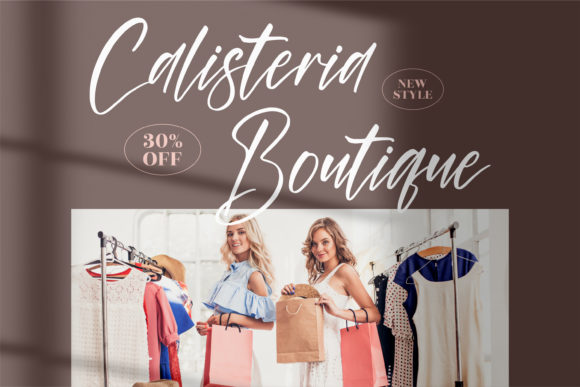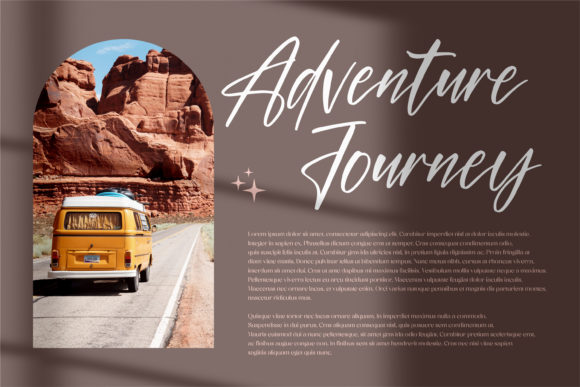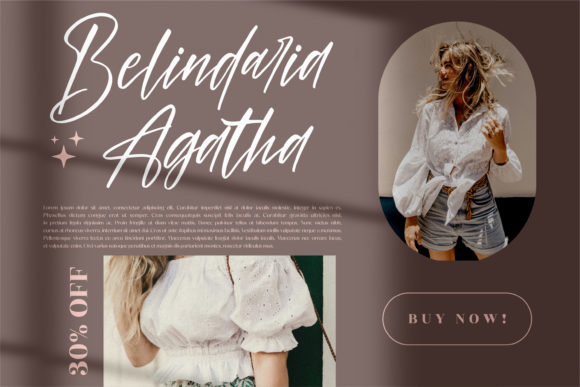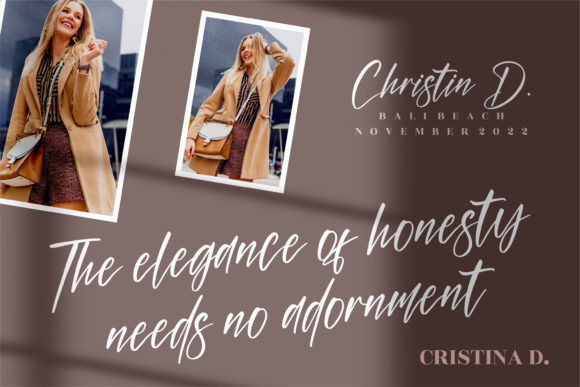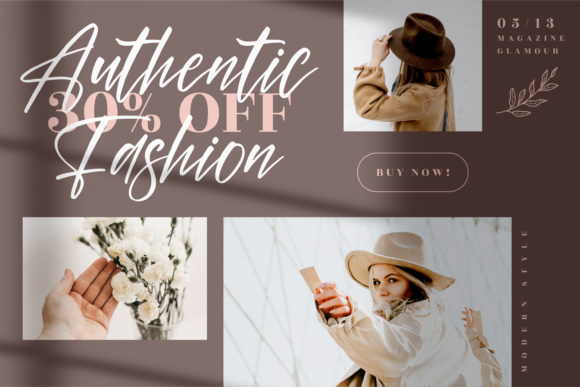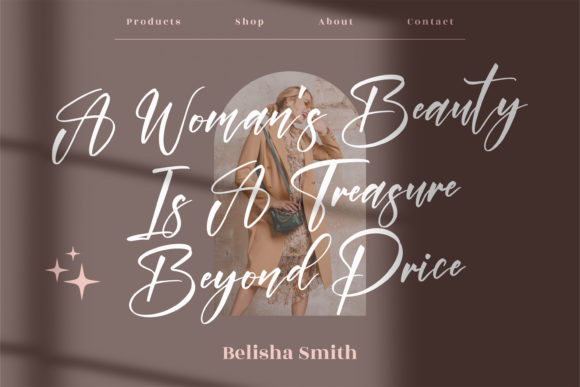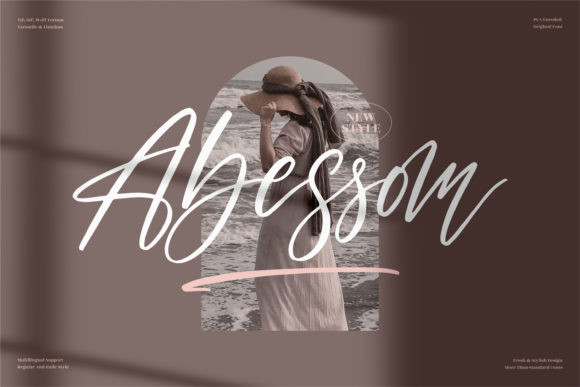
Introducing Abessom Font: The Ultimate Choice for Personalized Designs
Are you a designer or crafter looking for a font that can add a touch of personality to your projects? Look no further than Abessom Font, a laid-back and stylish script font that’s perfect for a variety of designs. In this article, we’ll explore the features and benefits of Abessom Font, and why it’s a must-have for anyone looking to add a personalized style to their work.
What is Abessom Font?
Abessom Font is a beautiful script font that’s designed to bring a sense of relaxation and style to your designs. Its laid-back vibe makes it perfect for projects that require a personal touch, such as branding, packaging, and advertising. With its elegant and flowing lines, Abessom Font is sure to capture the attention of your audience and leave a lasting impression.
Key Features of Abessom Font
So, what makes Abessom Font so special? Here are some of its key features:
• Laid-back and stylish: Abessom Font has a unique and stylish design that’s perfect for adding a personal touch to your projects.
• PUA encoded: Abessom Font is PUA (Private Use Area) encoded, which means you can access all of the glyphs and swashes with ease. This makes it easy to customize your text and add special effects.
• Multi-language support: Abessom Font supports multiple languages, making it a great choice for designers and crafters who work with international clients.
Benefits of Using Abessom Font
So, why should you choose Abessom Font for your projects? Here are some of the benefits of using this amazing font:
• Add a personal touch: Abessom Font allows you to add a personal touch to your designs, making them stand out from the crowd.
• Increase brand recognition: With its unique and stylish design, Abessom Font can help increase brand recognition and build a strong brand identity.
• Easy to customize: Abessom Font’s PUA encoding makes it easy to customize your text and add special effects, giving you more creative control over your designs.
Who Can Use Abessom Font?
Abessom Font is perfect for a variety of designers and crafters, including:
• Graphic designers: Abessom Font is perfect for graphic designers who want to add a personal touch to their designs.
• Crafters: Abessom Font is great for crafters who want to add a unique and stylish touch to their handmade projects.
• Branding experts: Abessom Font can help branding experts create a strong brand identity and increase brand recognition.
• Advertising professionals: Abessom Font is perfect for advertising professionals who want to create eye-catching and effective ads.
In conclusion, Abessom Font is a laid-back and stylish script font that’s perfect for designers and crafters who want to add a personal touch to their projects. With its PUA encoding, multi-language support, and ease of use, Abessom Font is a must-have for anyone looking to create unique and effective designs. So why wait? Download Abessom Font today and take your designs to the next level!